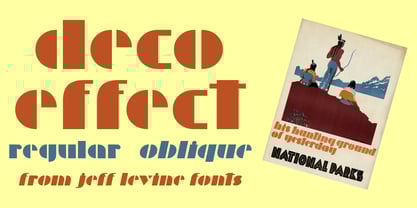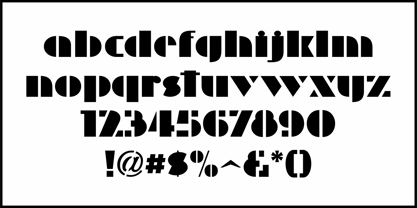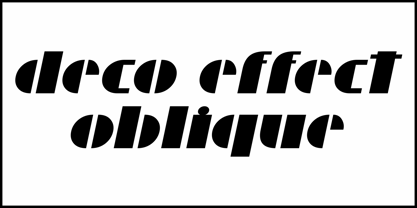
Deco Effect JNL
by Jeff Levine
A National Parks poster created and hand lettered by Dorothy Waugh in 1934 featured text in an oblique style strongly influenced by Futura Black. Entitled "His Hunting Ground of Yesterday", Waugh breaks with typesetting norms and designed the poster with only lower case characters.
Now available digitally as Deco Effect JNL in both regular and oblique versions, this ultra bold typeface can be paired with any similar font for continuity, or used alone in lower case for attention-getting effect.